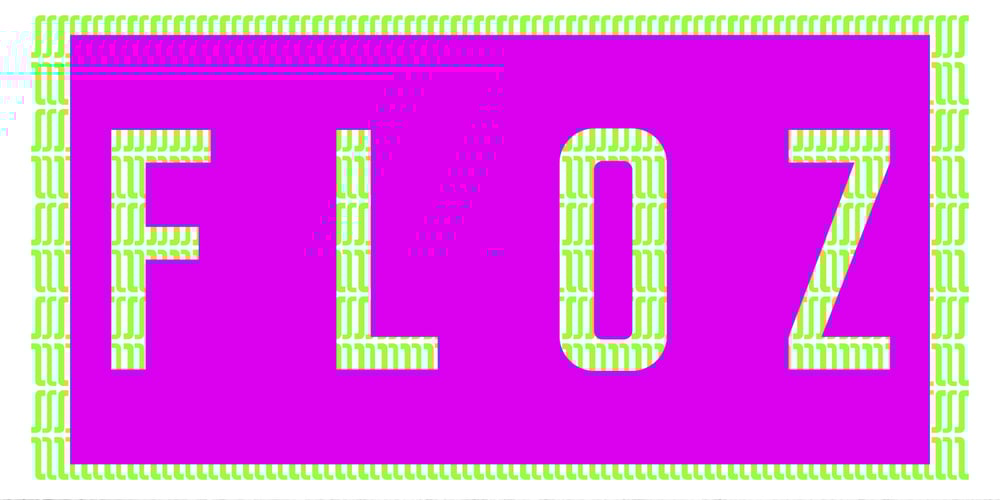
Floz
Floz font
Floz Font Family was designed by Dominik Krotscheck and published by Dominik Krotscheck. Floz contains 2 styles and family package options. Floz is a simple and clean condensed all-caps sans serif font. It comes in two weights: regular (which is already pretty bold) and bold (which is even bolder). It works well for logos, headlines and other short texts. It’s also quite cheap.